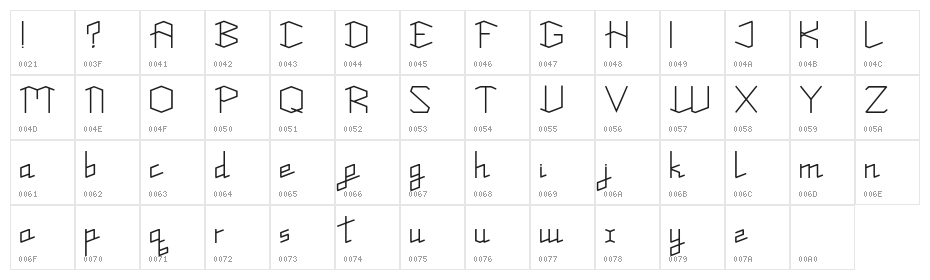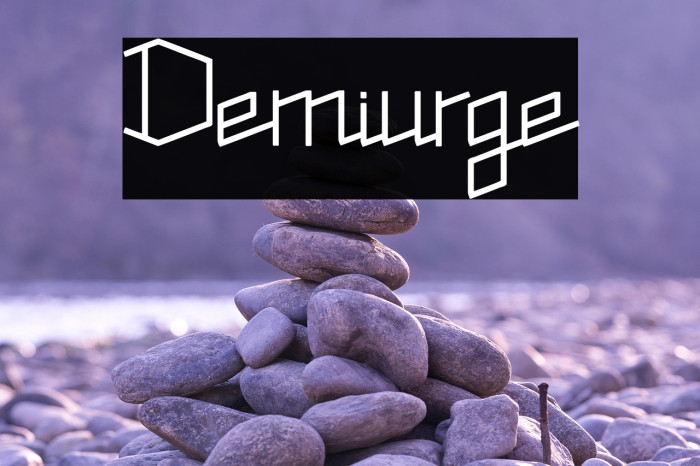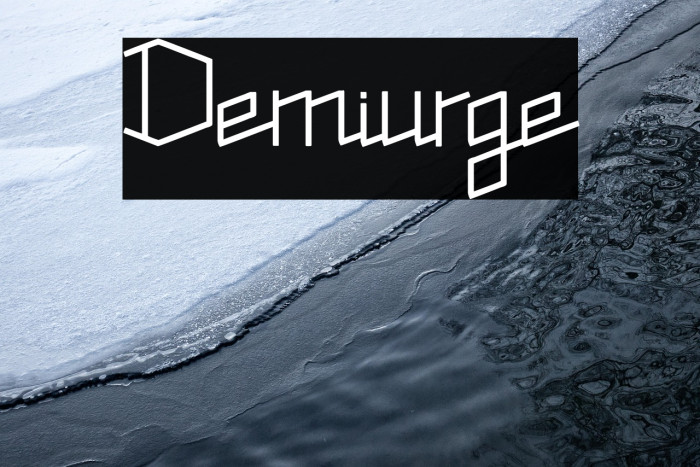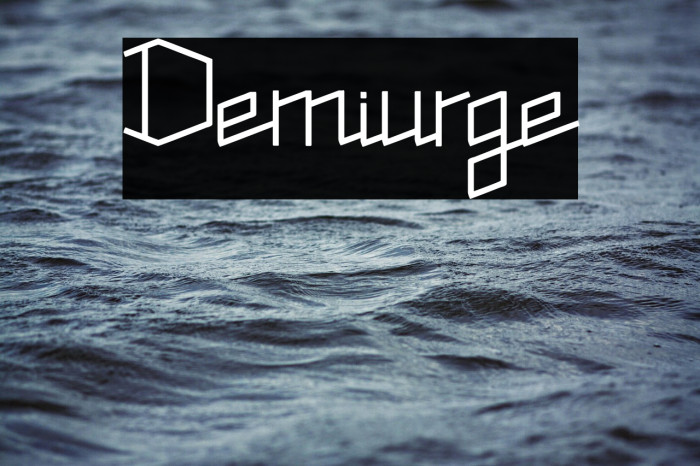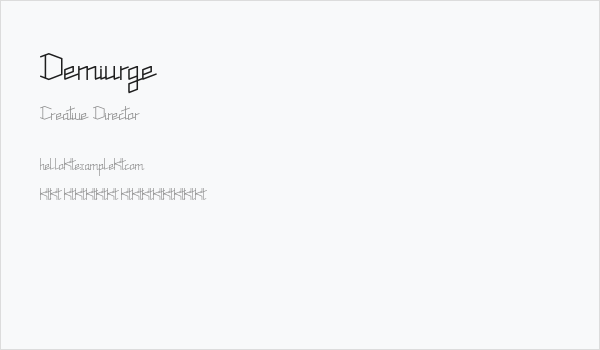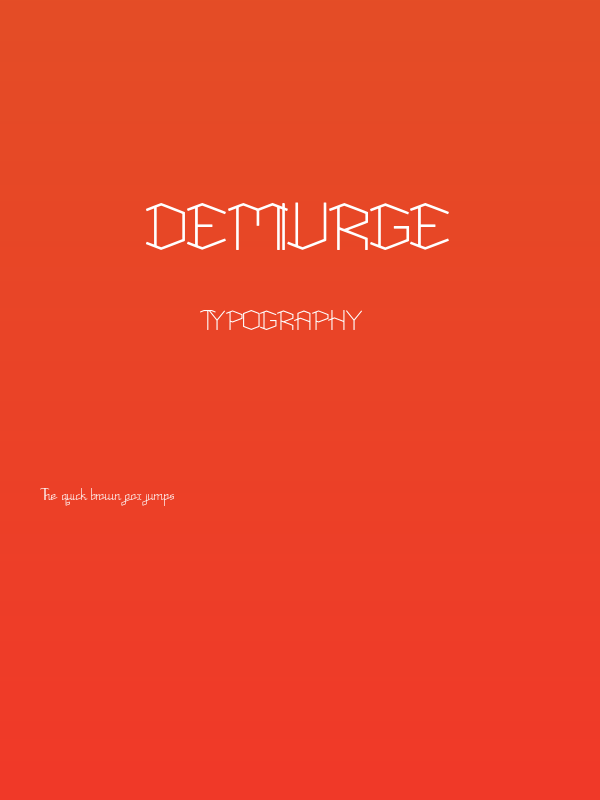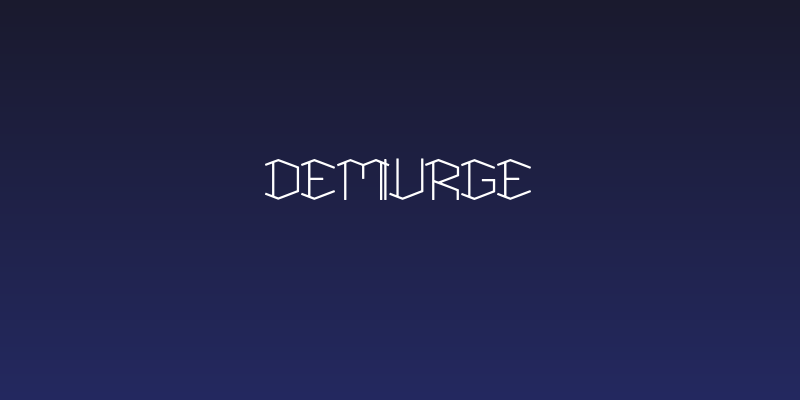
Demiurge Font
Demiurge Description
This font features a geometric and angular design, characterized by its sharp, straight lines and consistent angles. The uppercase letters are uniform in height, creating a cohesive and structured appearance. The lowercase letters maintain the angular theme, with some characters extending slightly below the baseline, adding a touch of dynamism. The numerals are consistent with the overall style, ensuring a harmonious look across all characters. The special characters, such as the exclamation mark, integrate seamlessly with the rest of the font, maintaining the geometric aesthetic. This font's unique style makes it stand out, offering a modern and edgy feel.
| Proposed Projects | Ideal for modern branding, tech-related projects, futuristic designs, and digital media. |